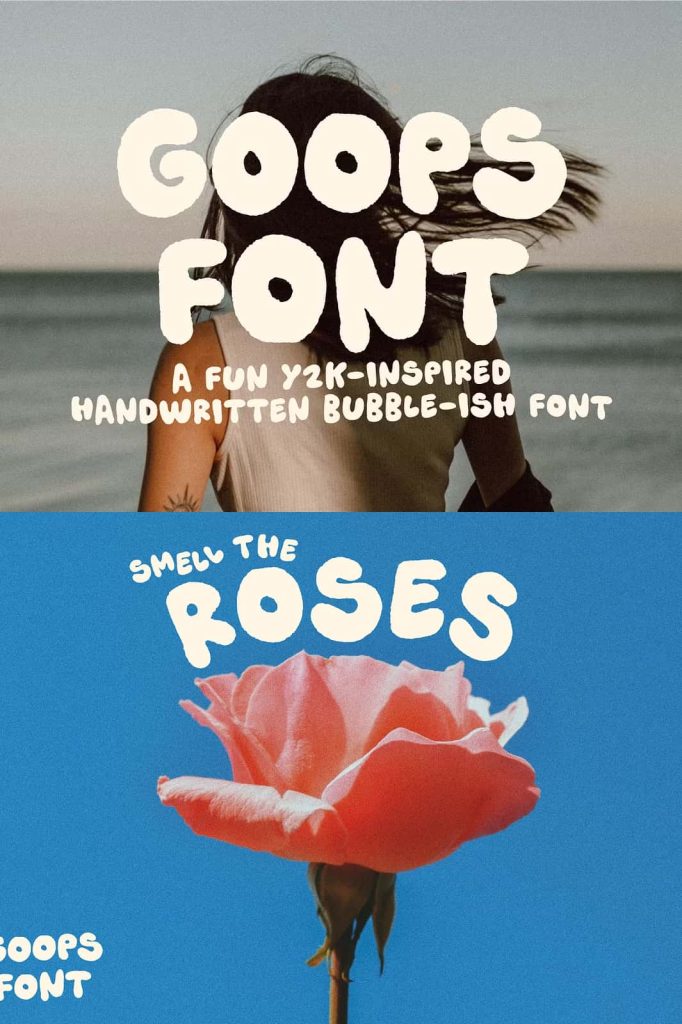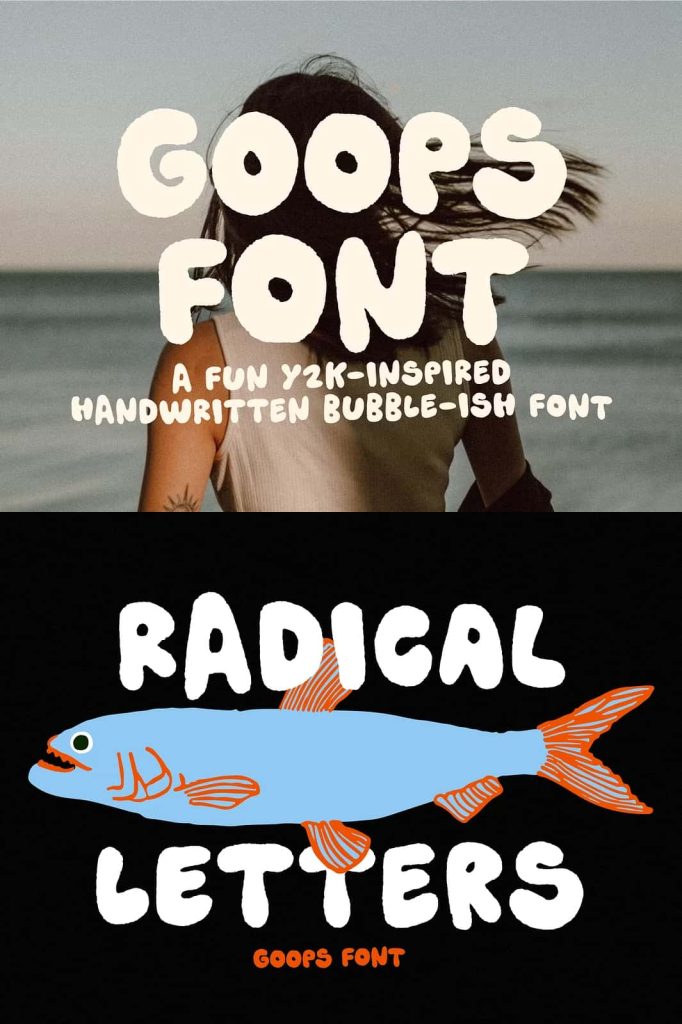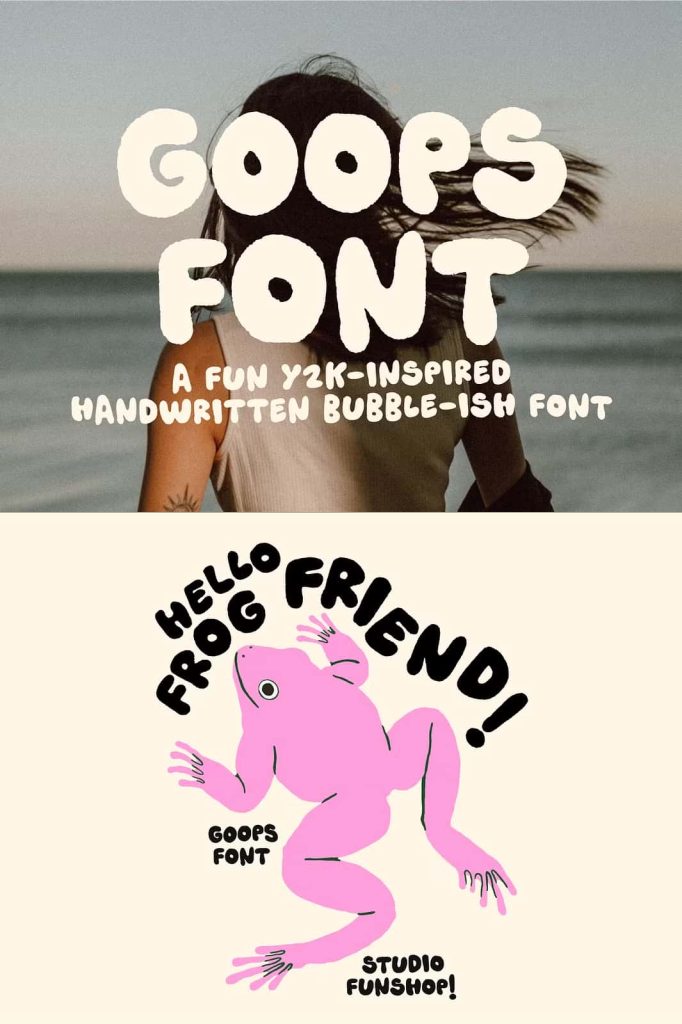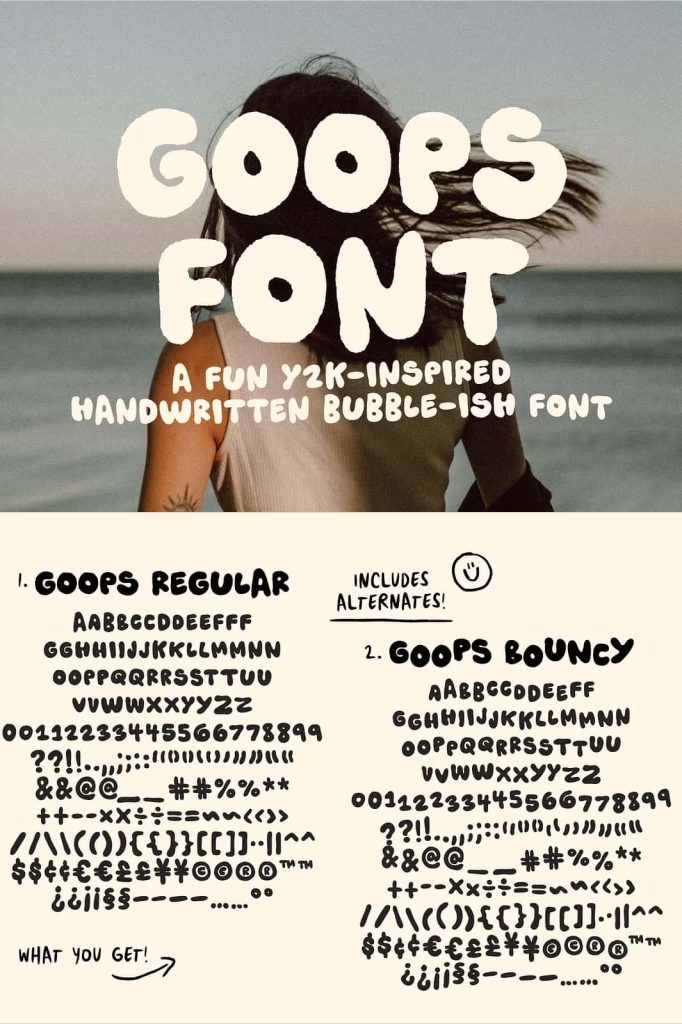
Goops! A handwriting bubble font!dezzignerJune 13, 2025Fonts Goops Font Introducing Goops! A fun Y2K-inspired handwritten bubble font in two styles Download